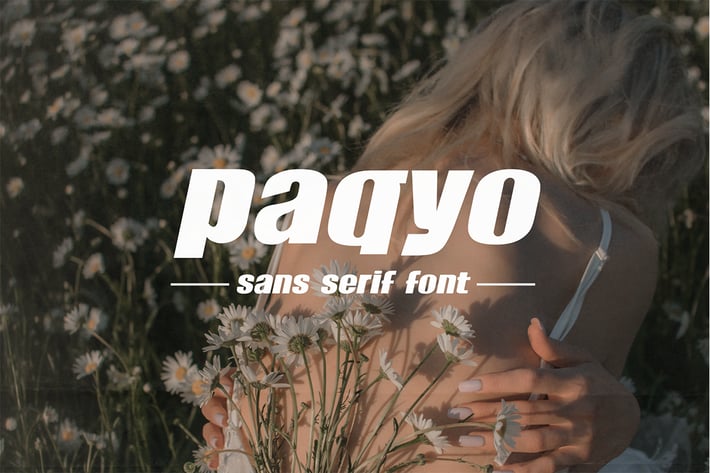
Paqyo - Sans Serif Font
Introducing Paqyo, an elegant, simple, and modern sans serif font. Its unique and lovely feel.
So perfect for you who needs a typeface for logo designs, magazine, social media, brochure, and many more.